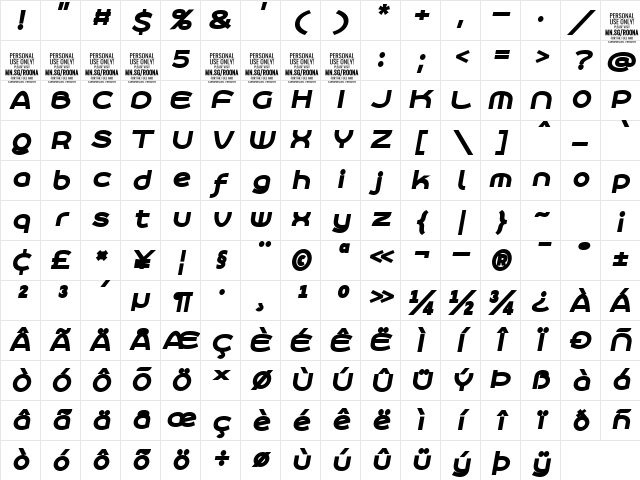
Roona Sans Black PERSONAL is a composed and adaptable typeface that performs quietly and consistently across a wide range of design contexts. The slanted form adds forward momentum and visual energy.
Pro Tip: Use Roona Sans Black PERSONAL for emphasis, pull quotes, and subheadings where its slanted energy can add rhythm to the layout.